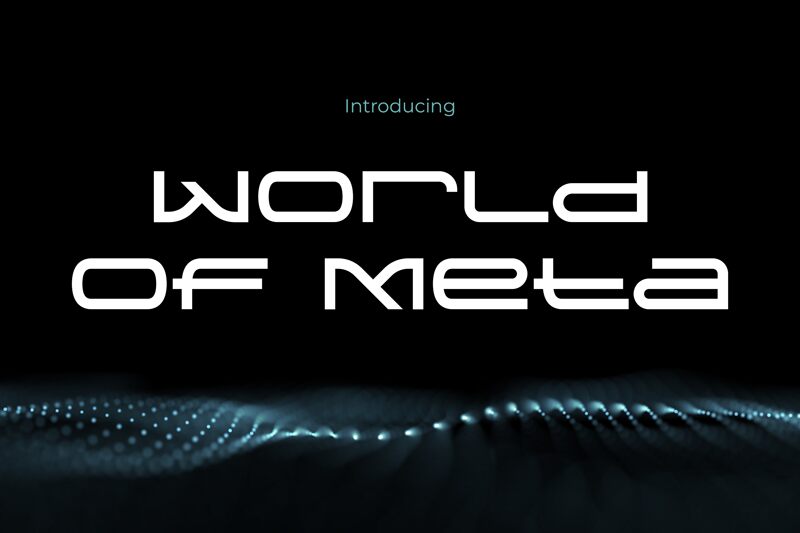
World of Meta font is a techno typeface style by Pinisiart that is free for personal use. This simple style is geometric and futuristic at its core. Its minimalist, modern design makes it suitable for various contemporary applications, especially in tech-related contexts. The clean lines of this font are best appreciated at larger sizes, where its features are clear and evident.
Due to its visual aspects, World of Meta is perfect for tech branding, digital interfaces, futurist event posters, book covers, and gaming elements. Use it to design modern logos, badges, and labels. It’s also excellent for uncommon marketing designs including banners, presentations, and business cards.